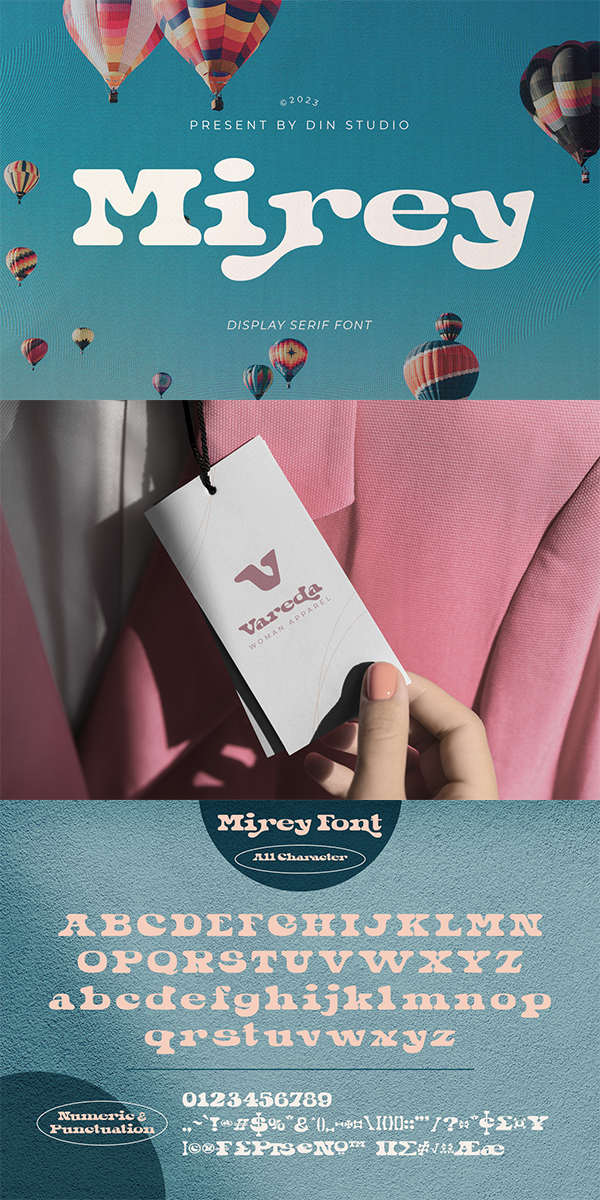
Mirey Font
About Mirey
Mirey is a display serif font in thick weights with small lines on the letters’ edges to look formal and classic. In addition, it expresses unique, artistic touches from its combinations with display font characters. This display font has thick lines and strong contrasts, so that it is perfect to attract attention and to show strong impressions.